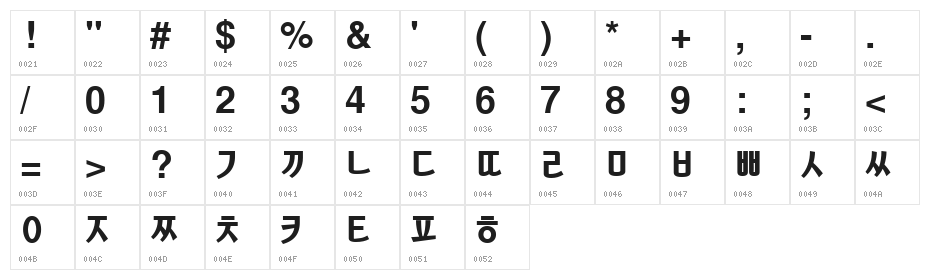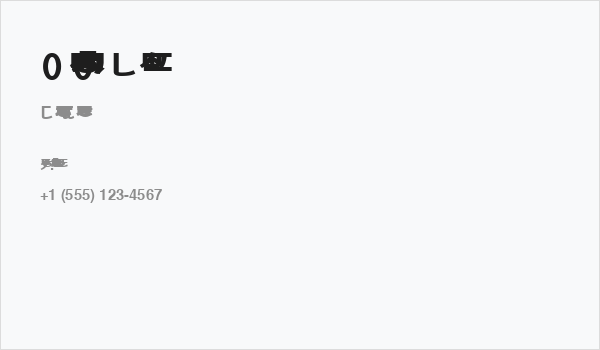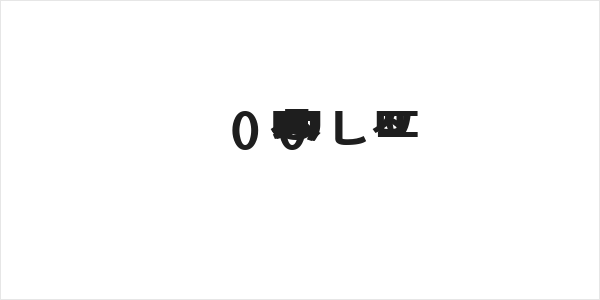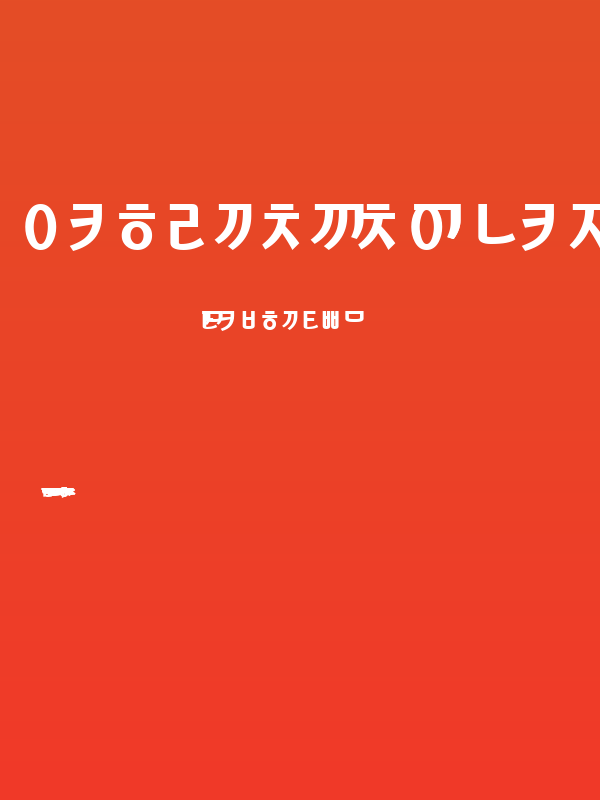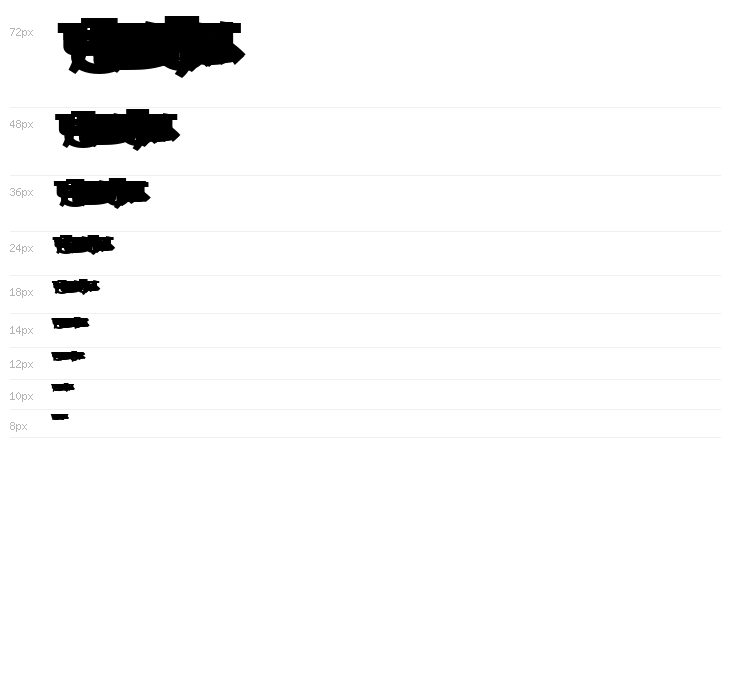
KoreanSansSSK Bold Font
KoreanSansSSK Bold Description
This font features a bold, modern design with strong geometric shapes and clean lines. The characters are well-defined, with a consistent stroke width that gives a uniform appearance. The uppercase letters are particularly striking, with a sense of authority and presence. The numerals and special characters maintain the same boldness, ensuring readability and impact. The font's style is both contemporary and versatile, making it suitable for a variety of design applications.
| Proposed Projects | Ideal for branding, advertising, headlines, and digital media projects. |